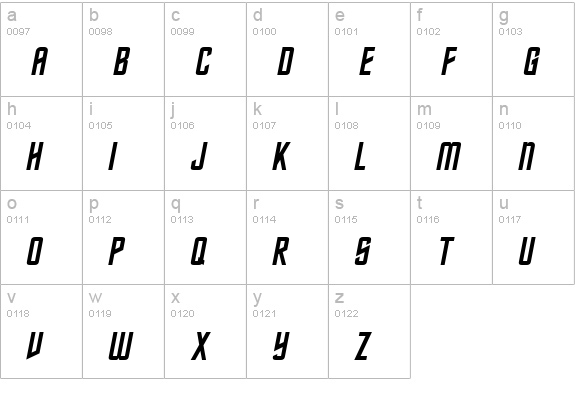
StarTrekClassic Font Details
Introducing StarTrekClassic font, a stunning typeface that brings the iconic Star Trek universe to life on the digital page. With its sleek and futuristic design, this font captures the essence of the original Star Trek series and all its intergalactic adventures. The StarTrekClassic font features meticulously crafted letterforms that pay homage to the beloved sci-fi franchise, seamlessly combining boldness and elegance. Each character is intricately designed, exuding a sense of technological advancement and spacefaring wonder. One of the most remarkable aspects of the StarTrekClassic font is that it is free. Yes, you read that right! This exceptional font can be downloaded at absolutely no cost from FontsMarket.com. Now you can boldly customize your designs, websites, or personal projects with this captivating typeface, without worrying about any financial constraints. Whether you are a die-hard Star Trek fan, a graphic designer looking for a unique touch, or simply someone who appreciates exceptional fonts, StarTrekClassic is a must-have in your typographic arsenal. Its versatility allows it to be seamlessly incorporated into a variety of creative endeavors, from posters and flyers to logos and branding materials. To summarize, StarTrekClassic font is a groundbreaking typeface that offers the perfect blend of nostalgia and innovation. And the best part? It's free to download at FontsMarket.com, so don't miss out on this incredible opportunity to add a touch of the final frontier to your designs. Engage with StarTrekClassic font today and let your creativity reach new galaxies!